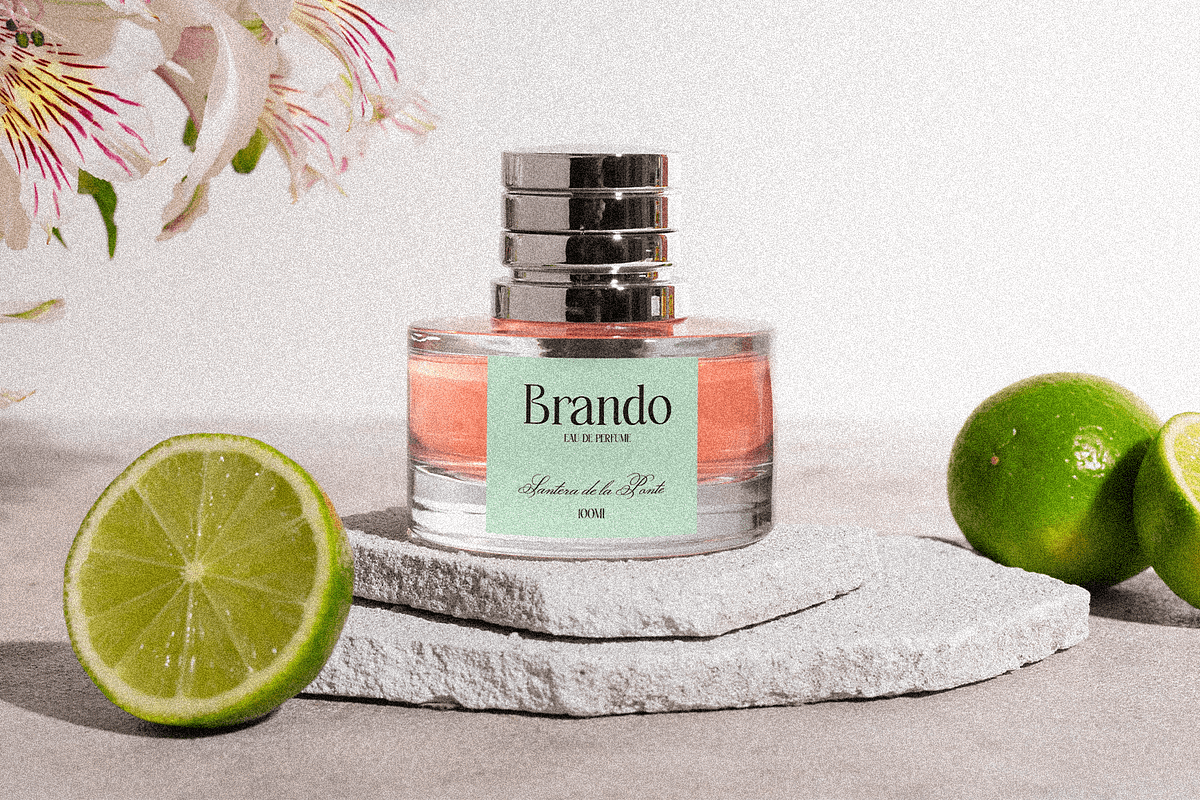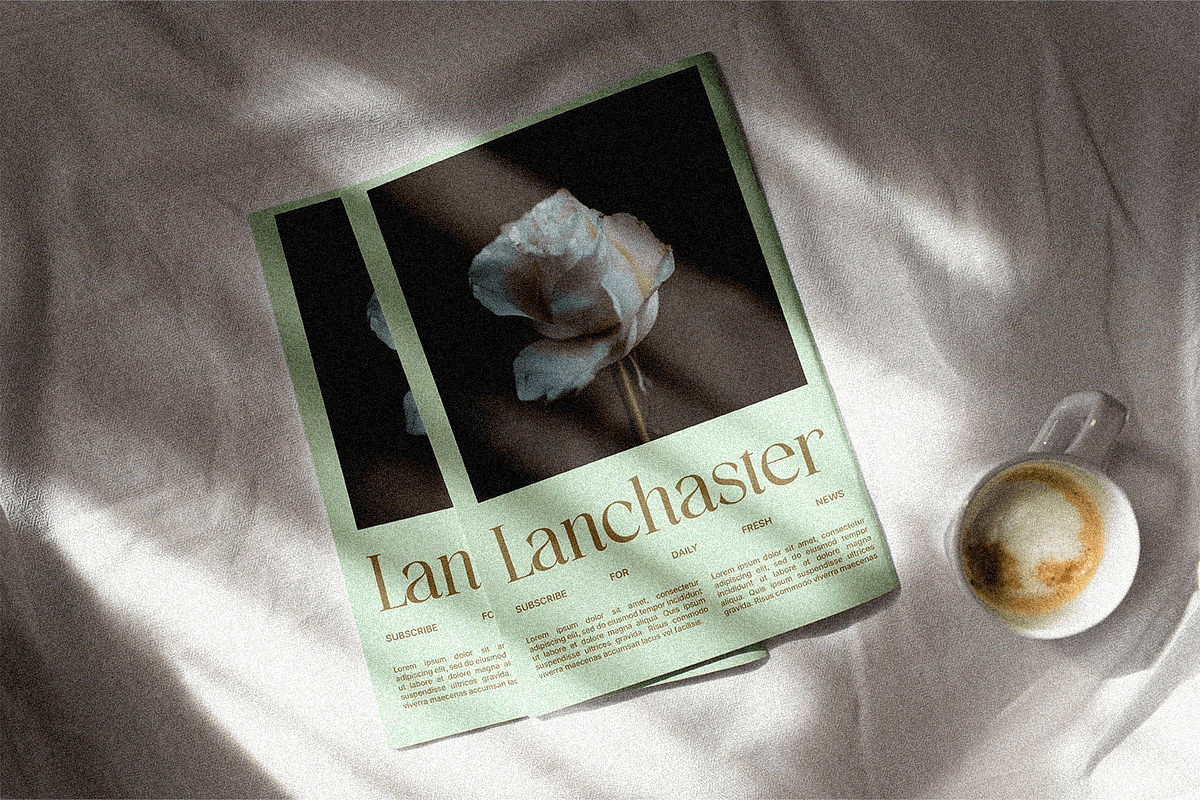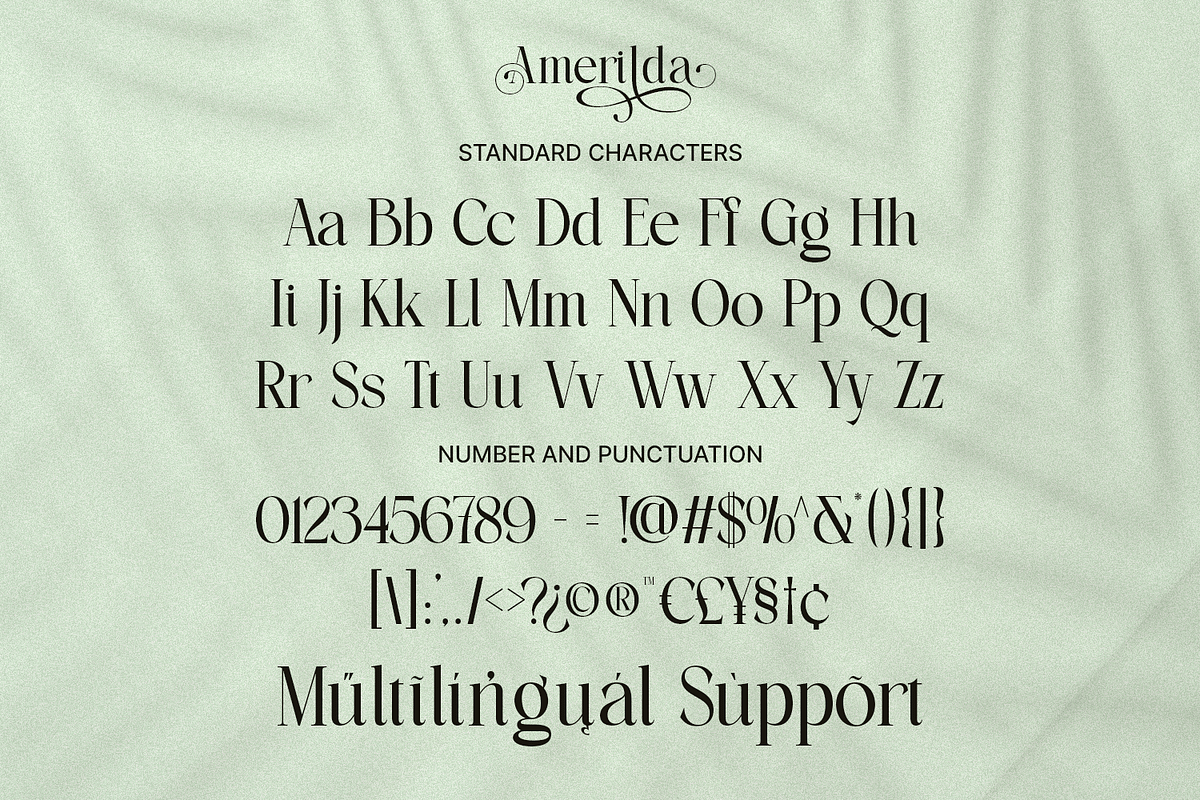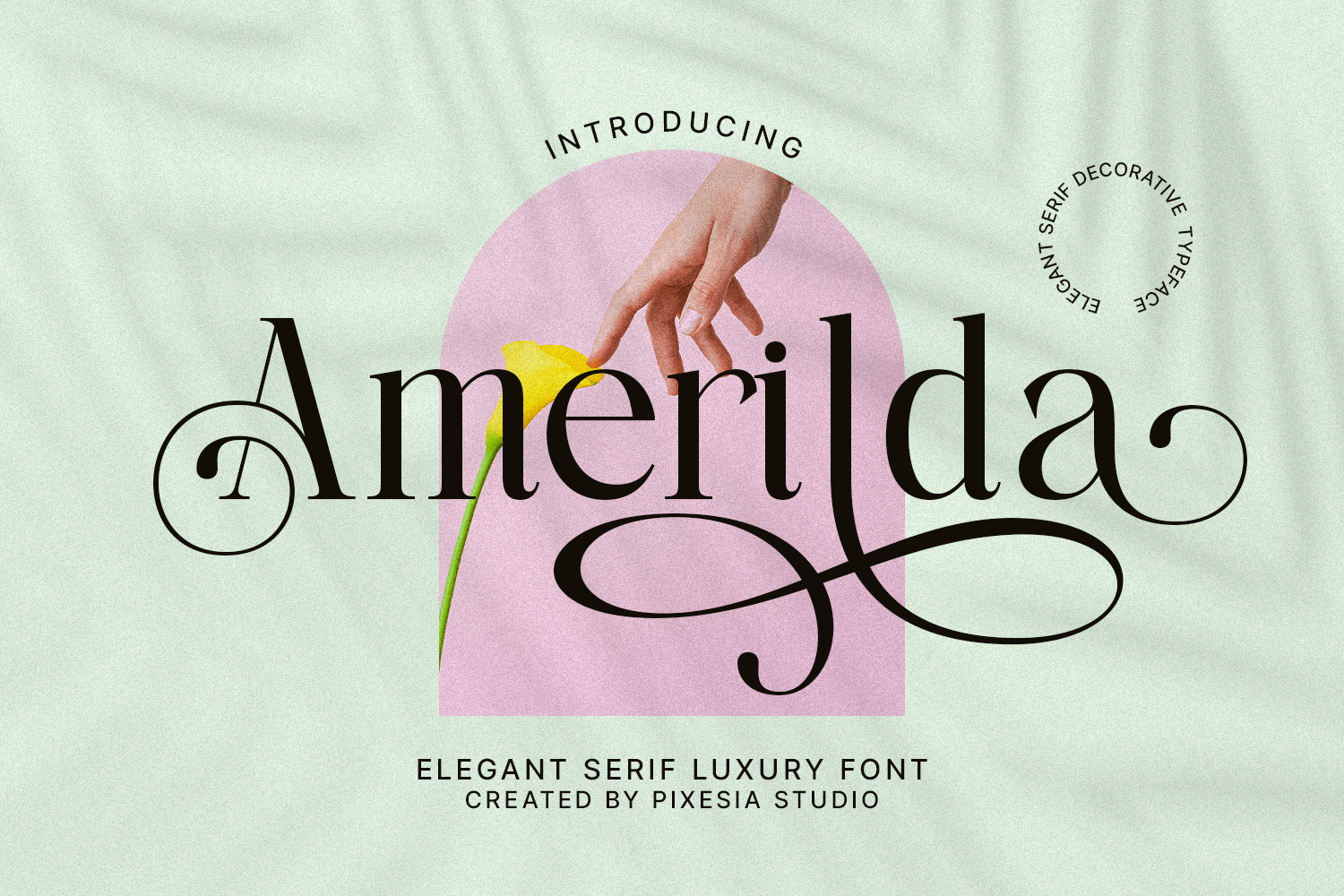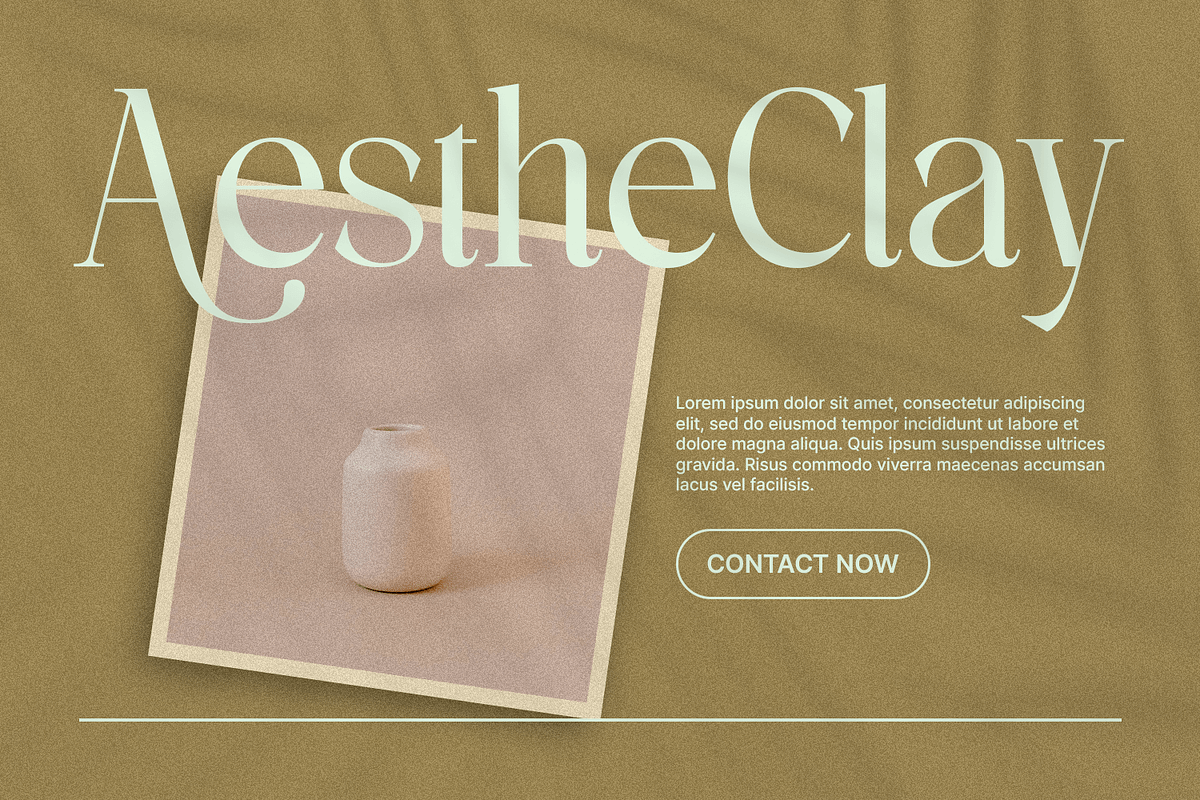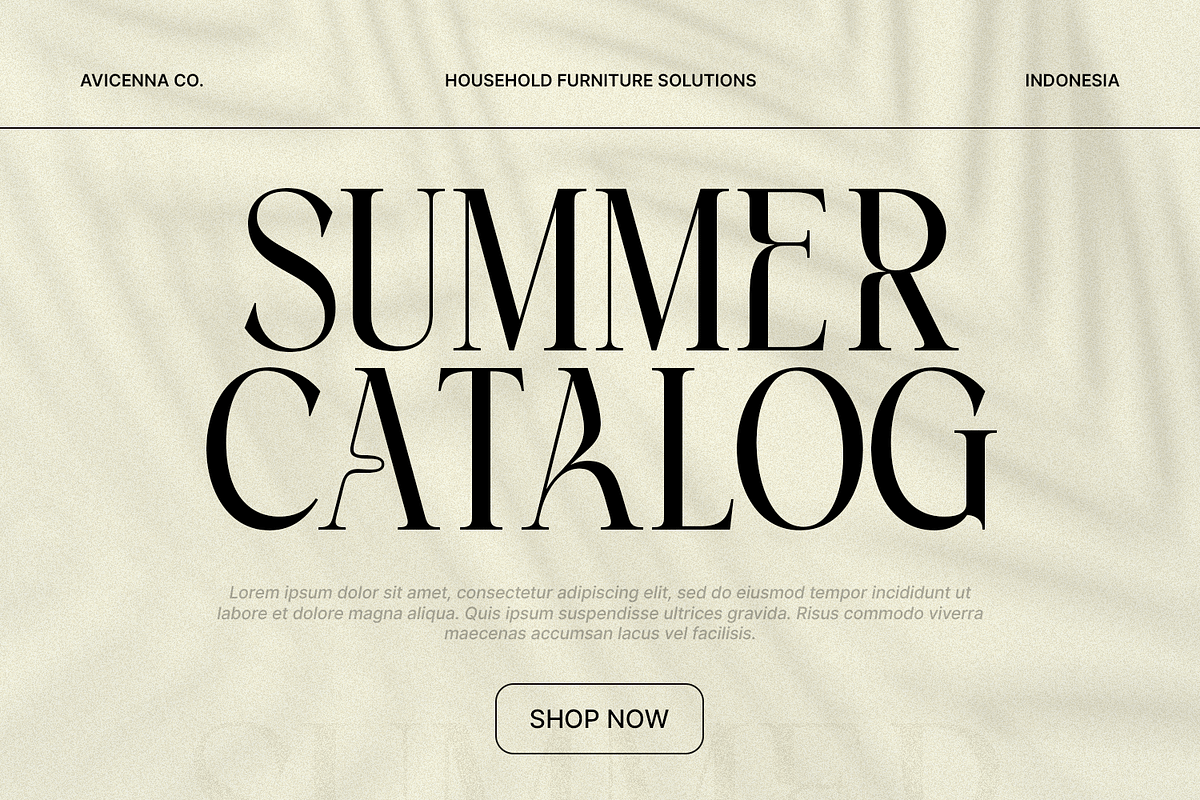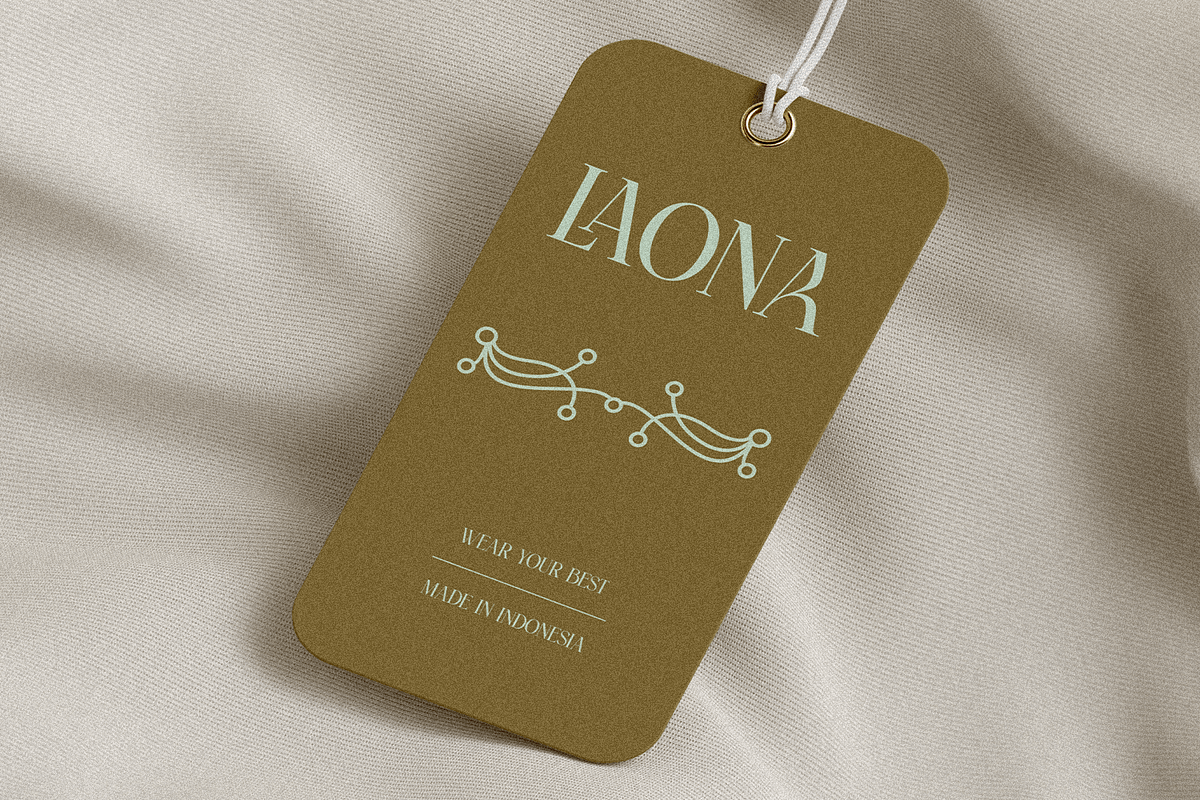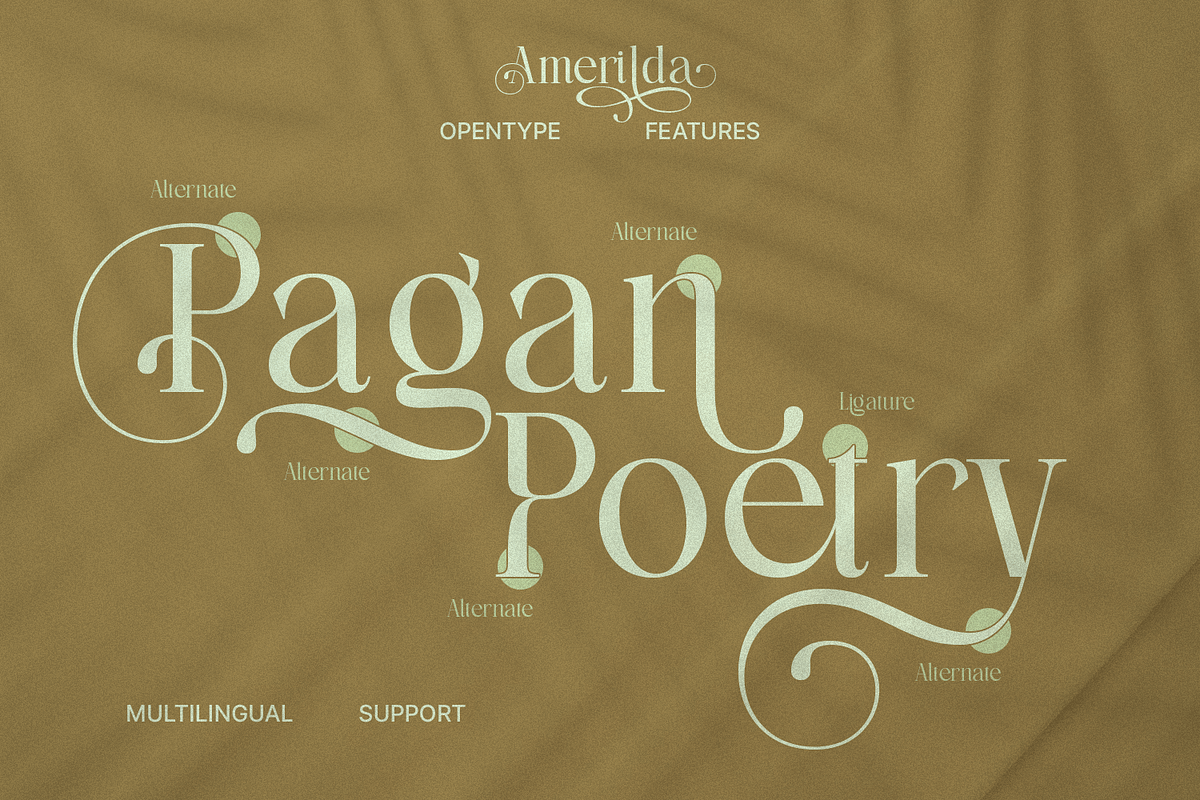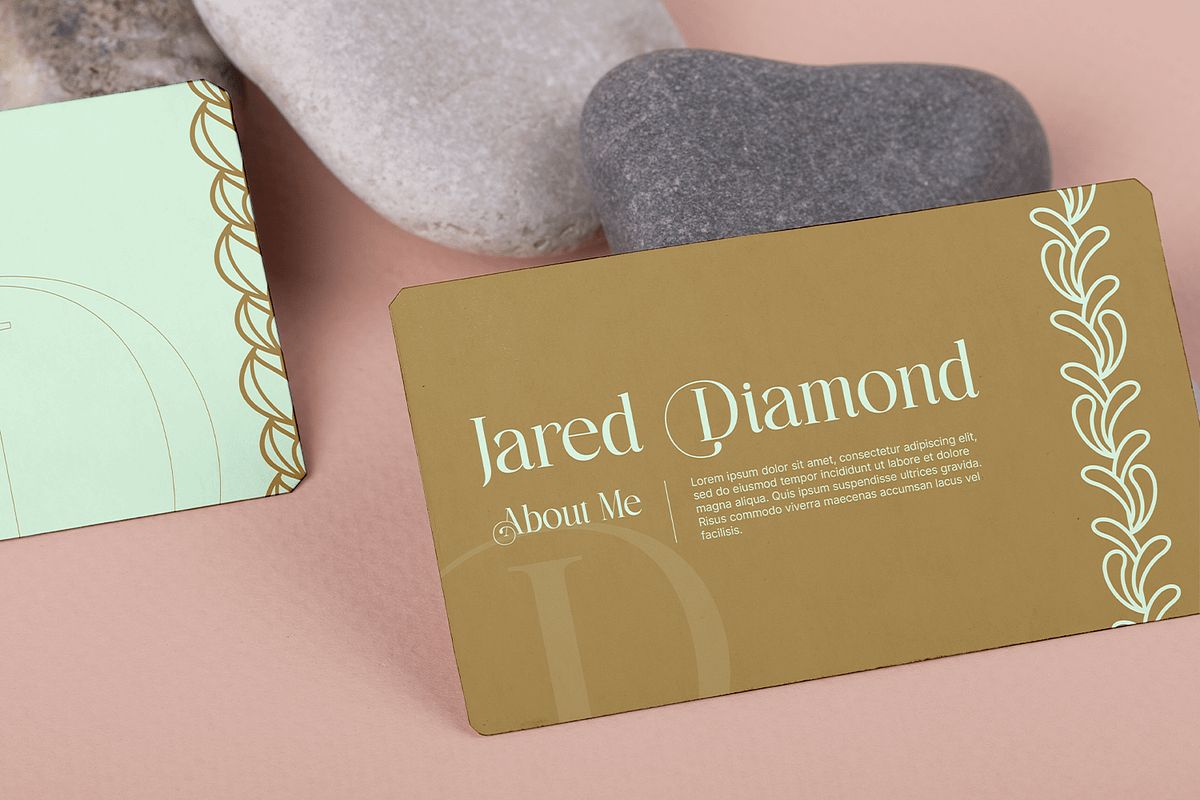
Amerilda – Elegant Luxury Serif Font
Introducing Amerilda – Elegant Luxury Serif Font
Amerilda is a refined and luxurious serif font that exudes sophistication and elegance. With its graceful letterforms and decorative swashes, Amerilda is designed to bring a high-end aesthetic to any creative project.
Amerilda is perfectly suited for branding, editorial designs, logotypes, fashion magazines, luxury packaging, labels, social media posts, advertisements, product packaging, product designs, label, photography, watermark, invitation, stationery and any project that seeks a touch of class and exclusivity.
- Multilingual Support including Afrikaans, Albanian, Basque, Catalan, Danish, Dutch, English, Estonian, Faroese, Filipino, Finnish, French, Galician, German, Icelandic, Indonesian, Irish, Italian, Malay, Norwegian Bokmål, Portuguese, Spanish, Swahili, Swedish, Zulu